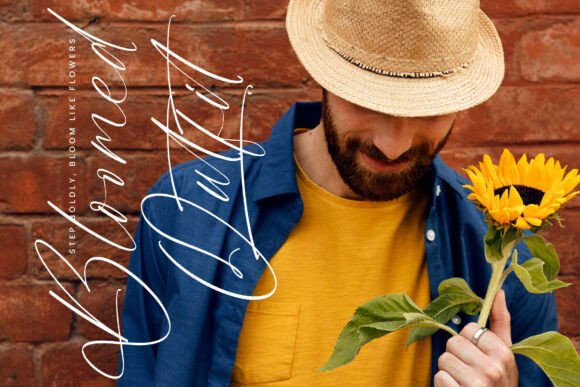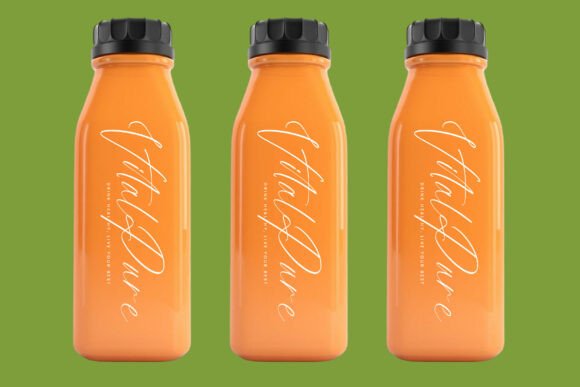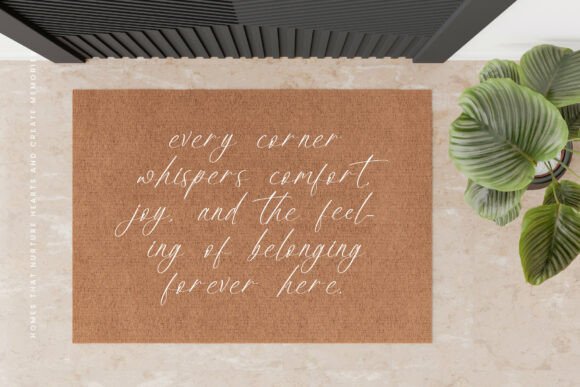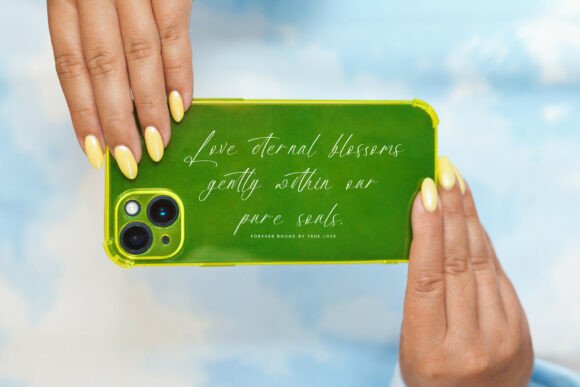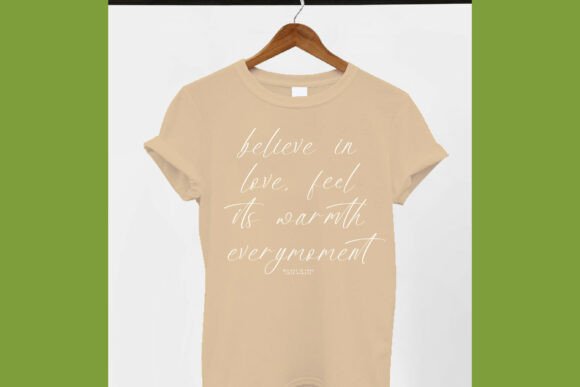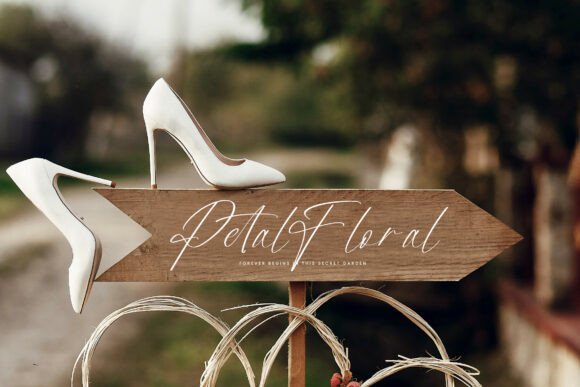
Introduction to Royal Time Font
Have you ever stumbled upon the perfect design element that elevates your creative project from ordinary to extraordinary? For designers, it’s a moment of pure joy, and for many, it’s the Royal Time Font. This exquisite handwritten script font has captured the hearts of many with its ultra-fine strokes, graceful swashes, and high-contrast curves.
Whether you’re working on a high-end wedding invitation, luxury branding, or fashion editorial, the Royal Time Font is the perfect design resource to add that extra touch of elegance and sophistication. With its modern calligraphy feel and royal flair, it’s no wonder why designers are flocking to this high-quality font for their most creative projects.
Key Features of Royal Time Font
- High-quality, elegant design perfect for creative projects and presentations.
- Designed with a unique, sophisticated style that exudes luxury and refinement.
Honest Review: Royal Time Font
I recently stumbled upon the Royal Time Font while searching for a design resource for my latest creative project. As a designer, I’m always on the lookout for high-quality fonts that can elevate my work.
The Royal Time Font caught my attention with its unique, elegant design. It’s perfect for adding a touch of sophistication to any project. One of the standout features of this font is its transparent background, which makes it easy to use with any design element.
Here are some of the things that work well with the Royal Time Font:
- ✨ Elegant and sophisticated design
- ✨ Easy to use with any design element
- ⚠️ Limited character set (may not be suitable for extended text)
- ⚠️ Not ideal for small text sizes
Overall, I’m impressed with the Royal Time Font. It’s a great design resource that can add a touch of elegance to any project. While it may have some limitations, I think it’s worth considering for your next creative project.
Getting the Most Out of Royal Time Font
For the best results, use the Royal Time Font in conjunction with a high-quality image or design element. Experiment with different font sizes and colors to add depth and visual interest to your design.
The Royal Time Font is perfect for use in wedding invitations, corporate branding, and other design projects that require a touch of sophistication. Its elegant design and high-quality features make it a valuable addition to any design resource library.